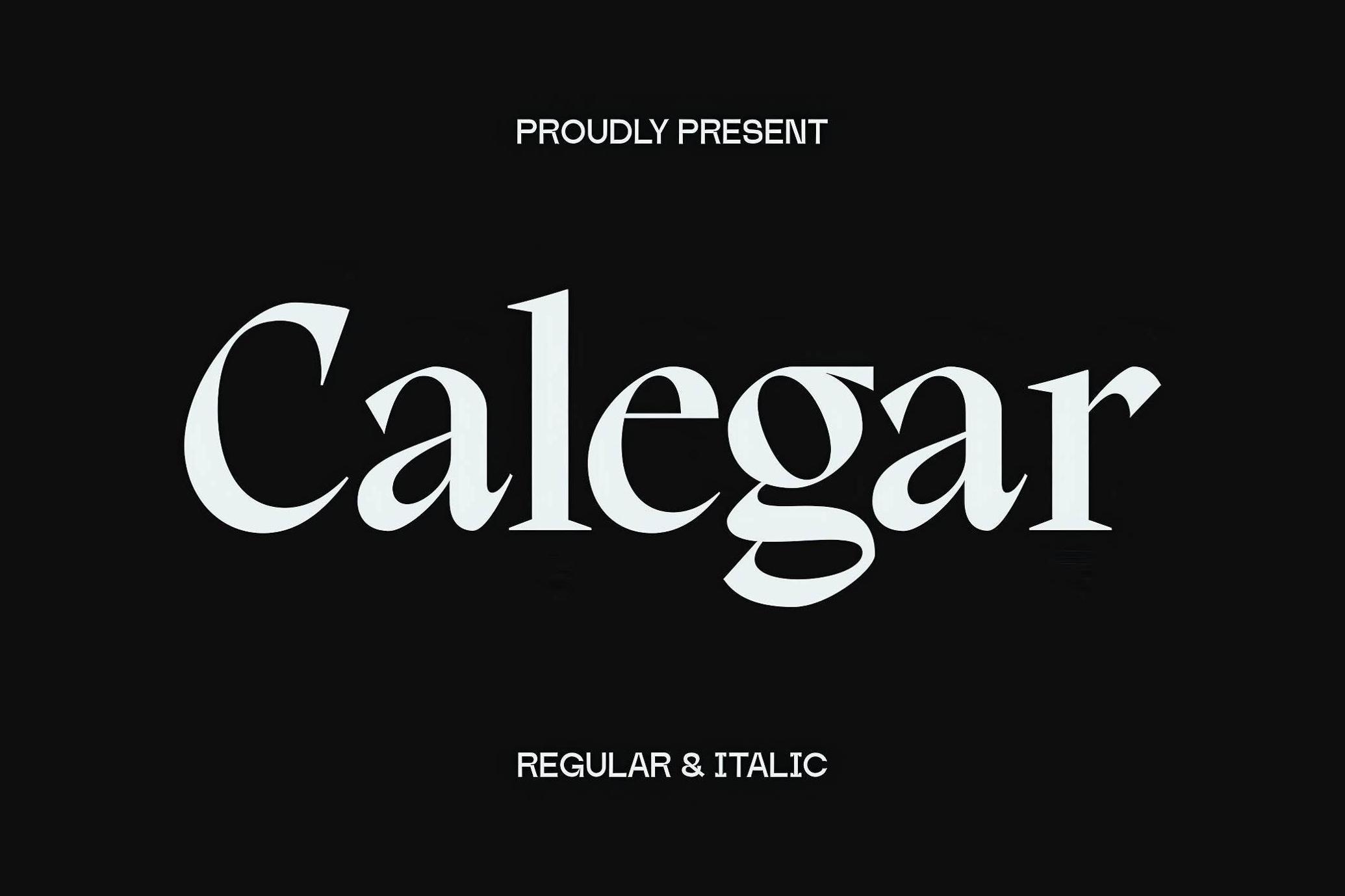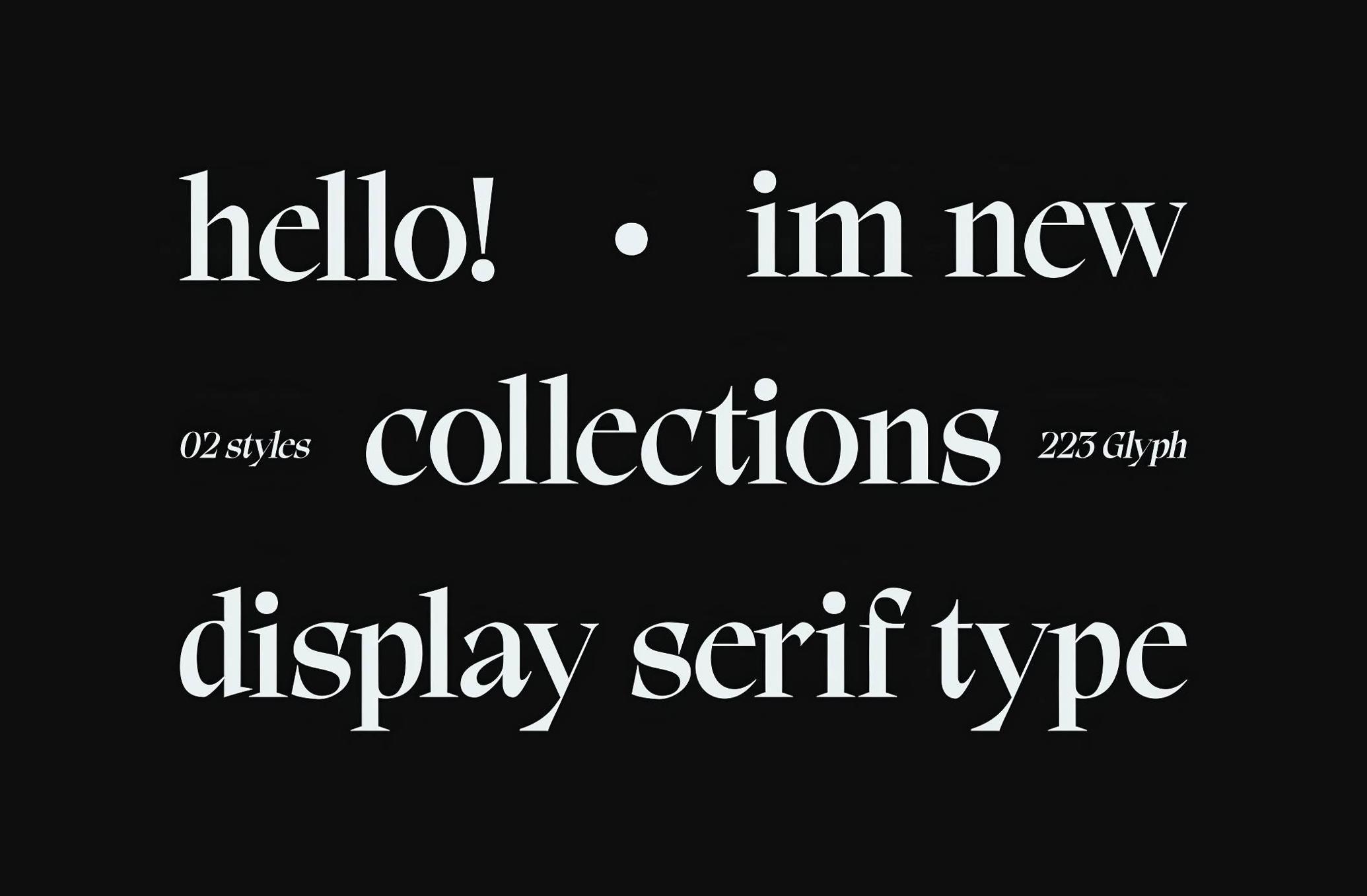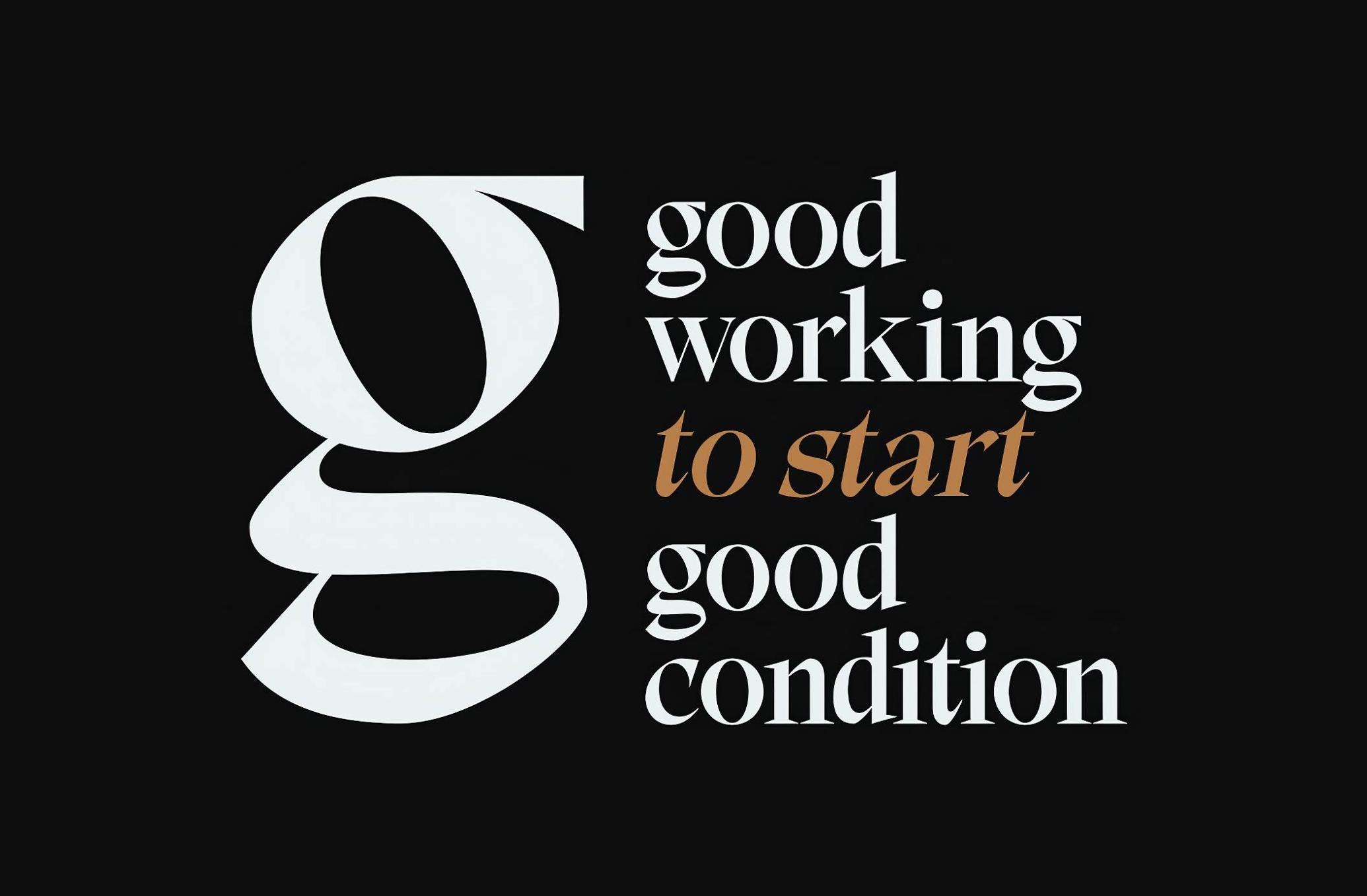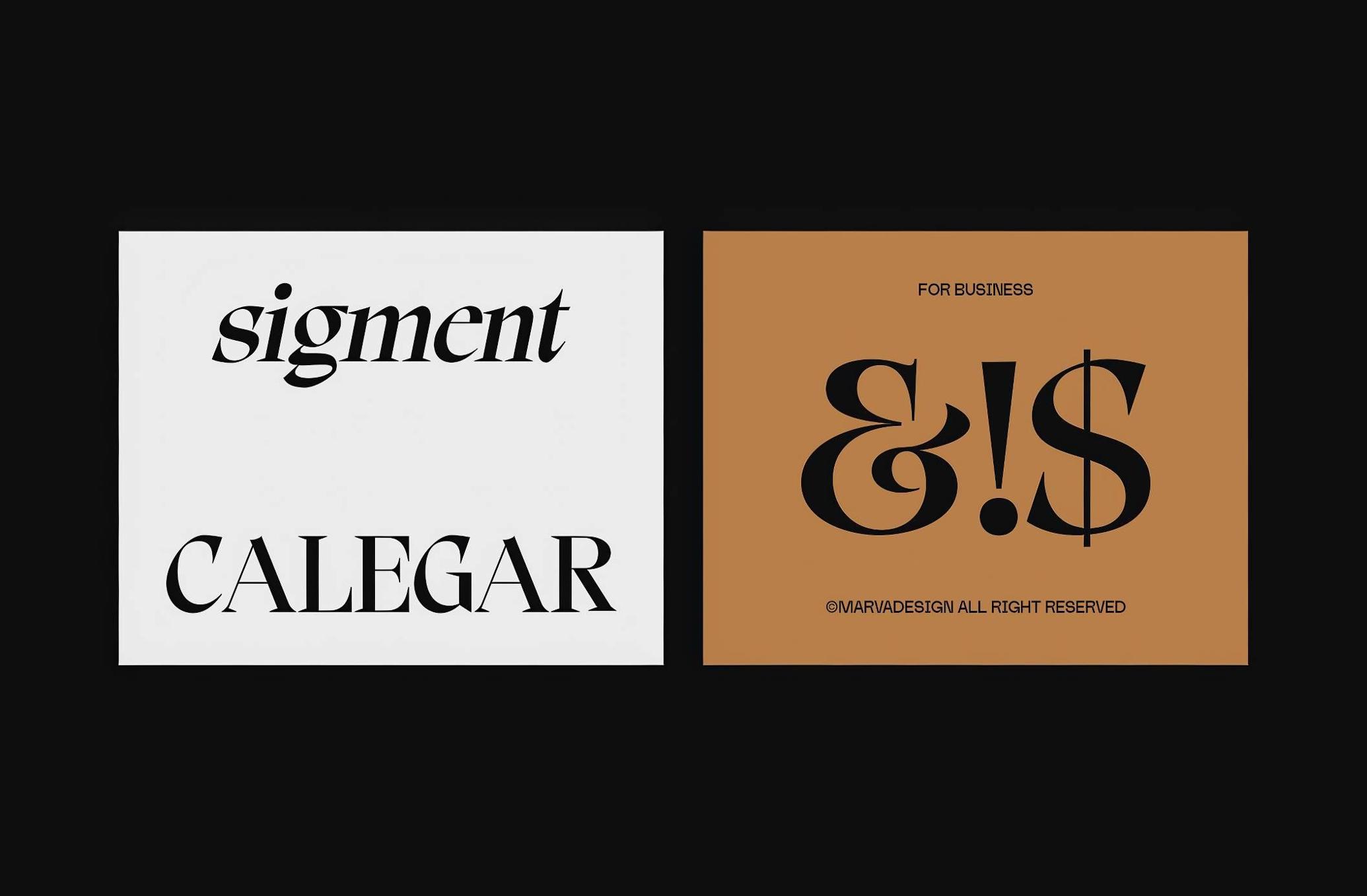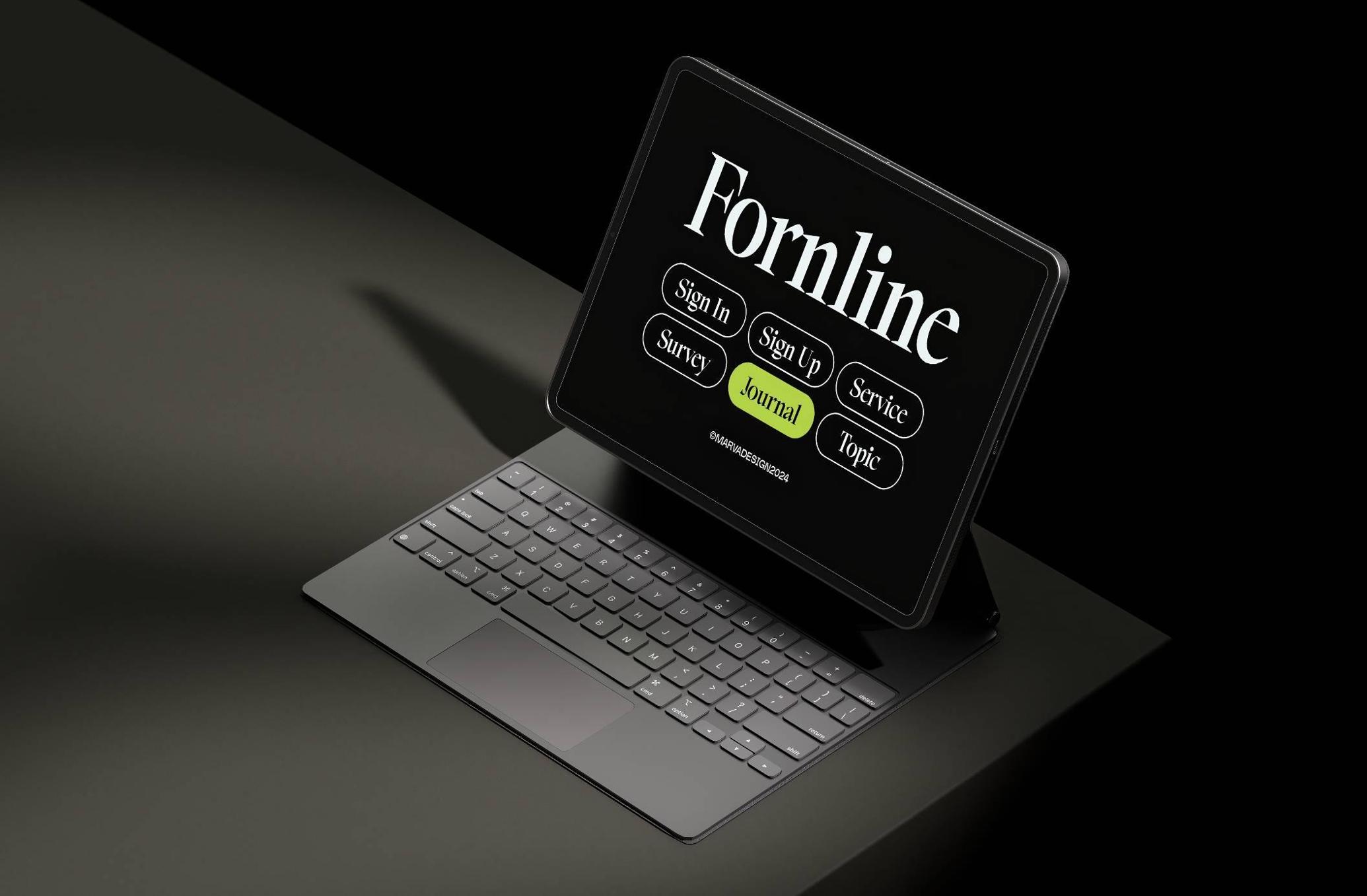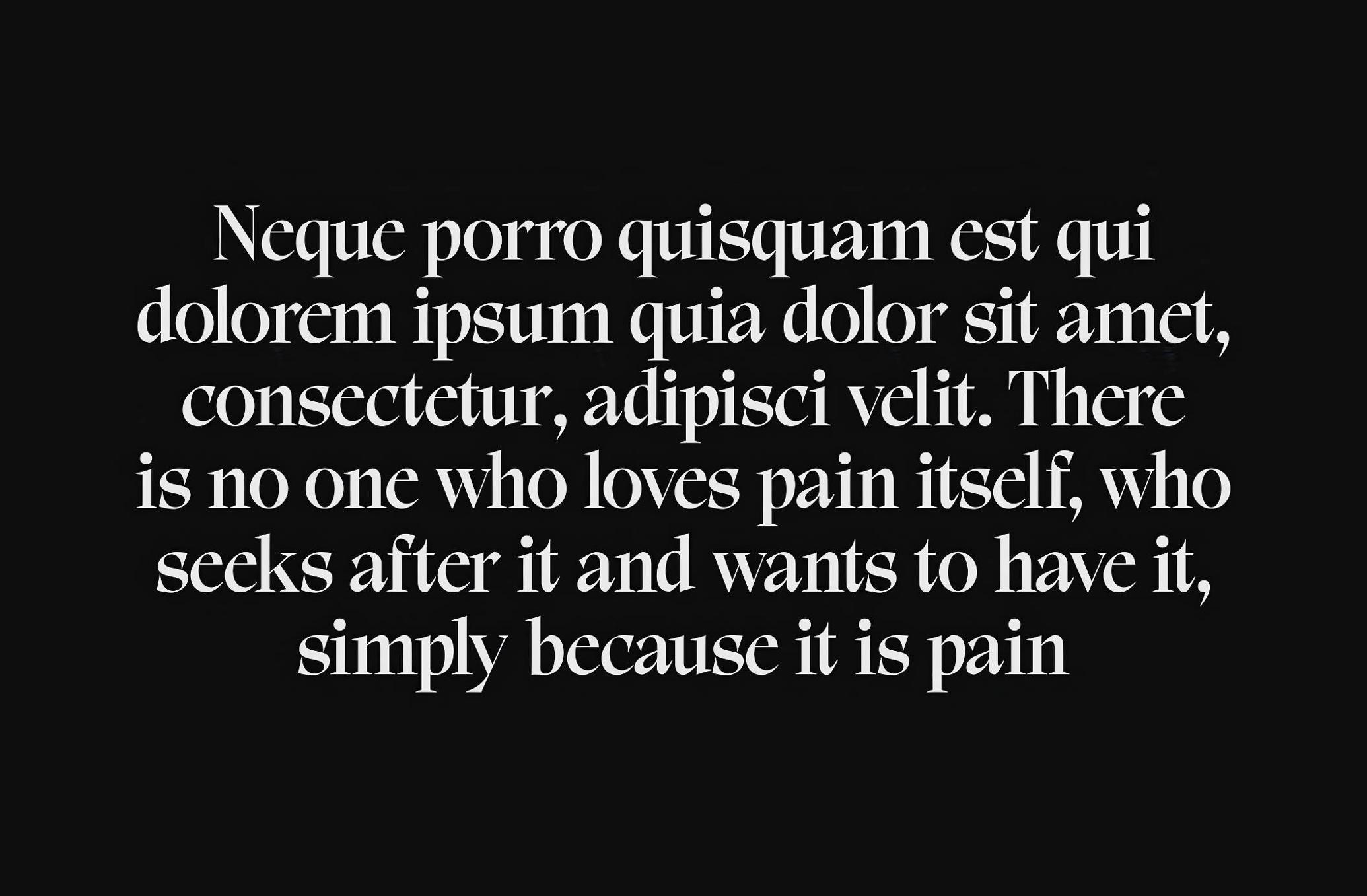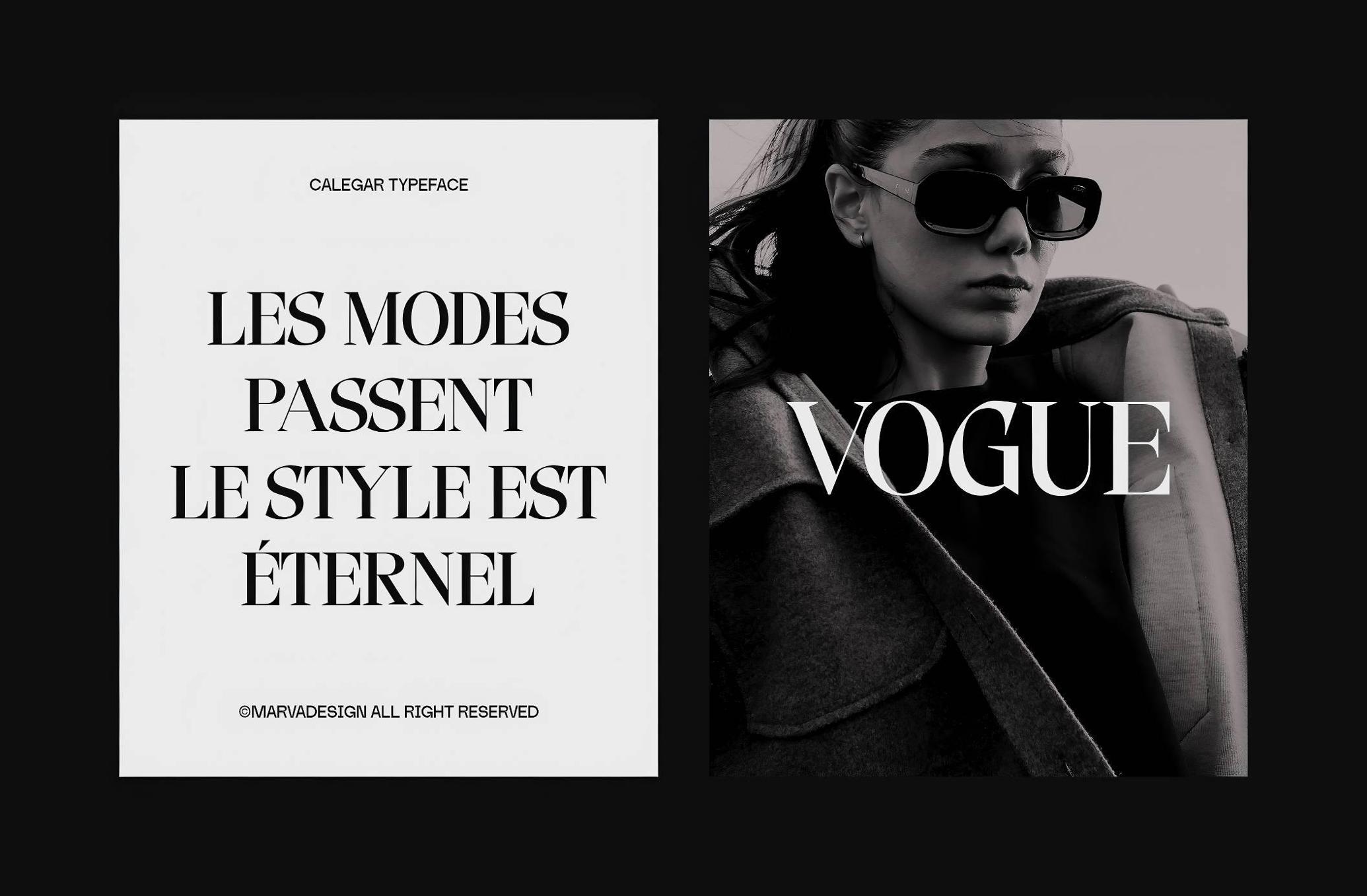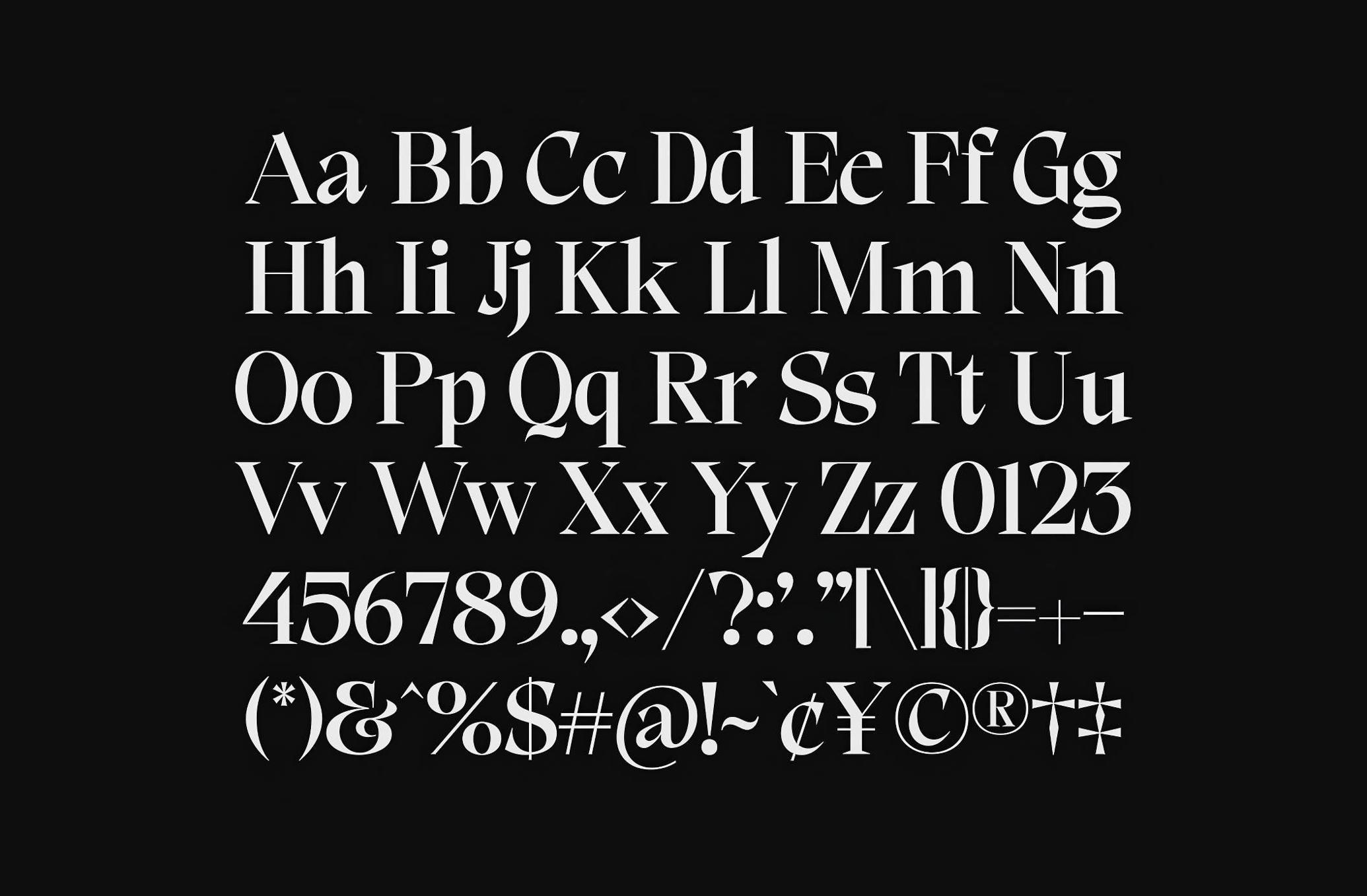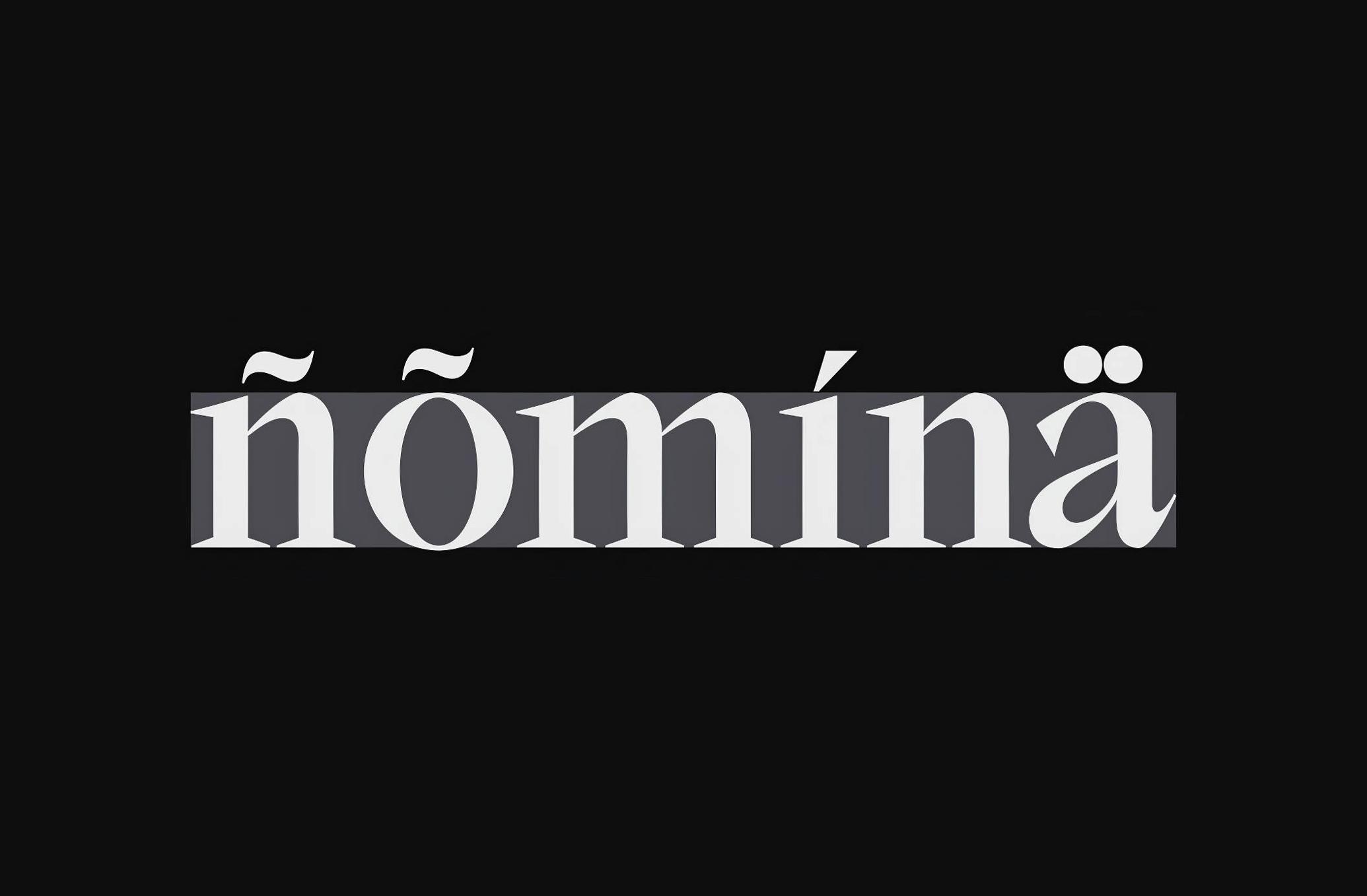
Calegar Display Serif Font
Calegar is the kind of serif that walks into a room and owns it — elegant, sharp, and dramatic. Designed for visual impact, its high-contrast letterforms and sculptural curves feel tailor-made for editorial headlines, fashion branding, and striking logotypes. The font includes uppercase, lowercase, and multilingual support. Calegar brings editorial-grade sophistication with just enough flair to keep things interesting — be it crafting an identity for a boutique label or typesetting a refined poster layout.